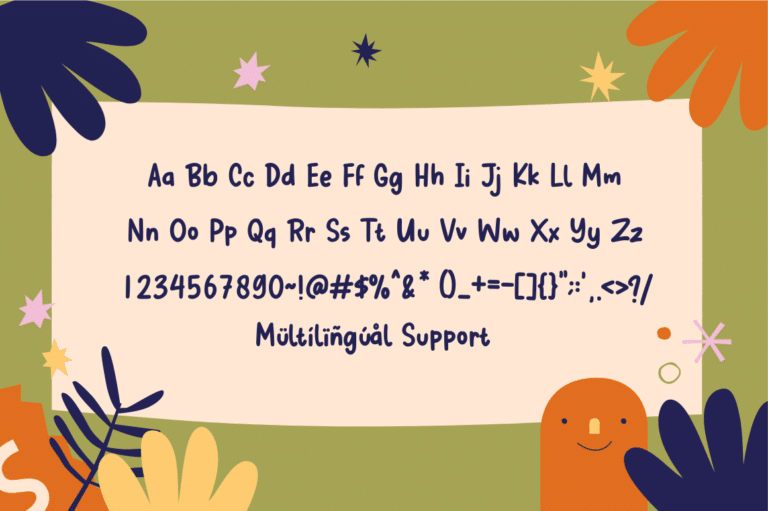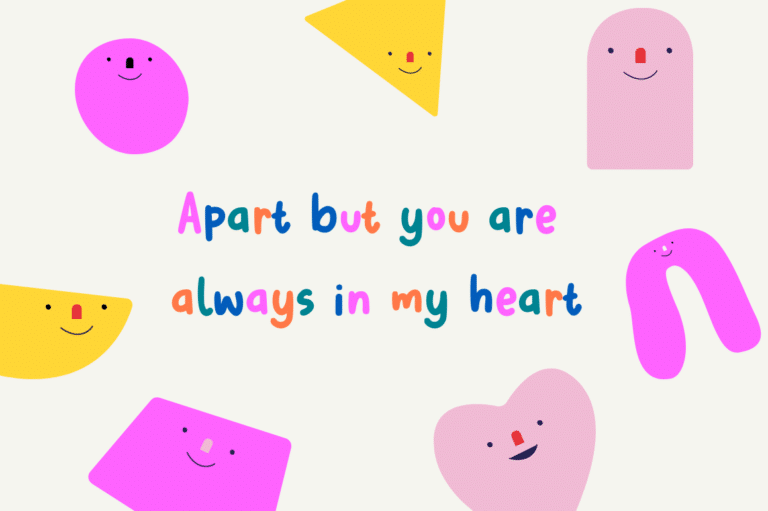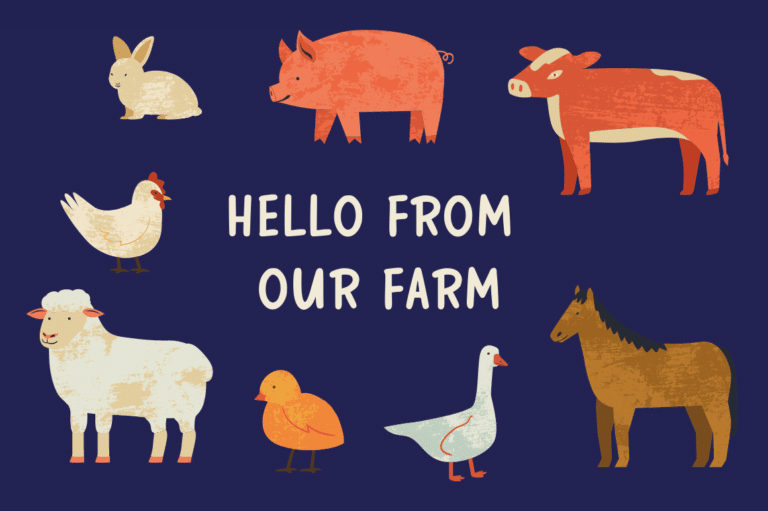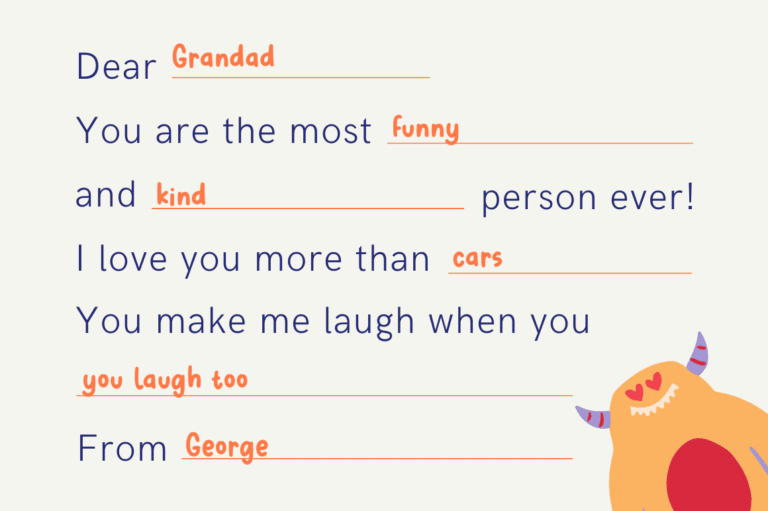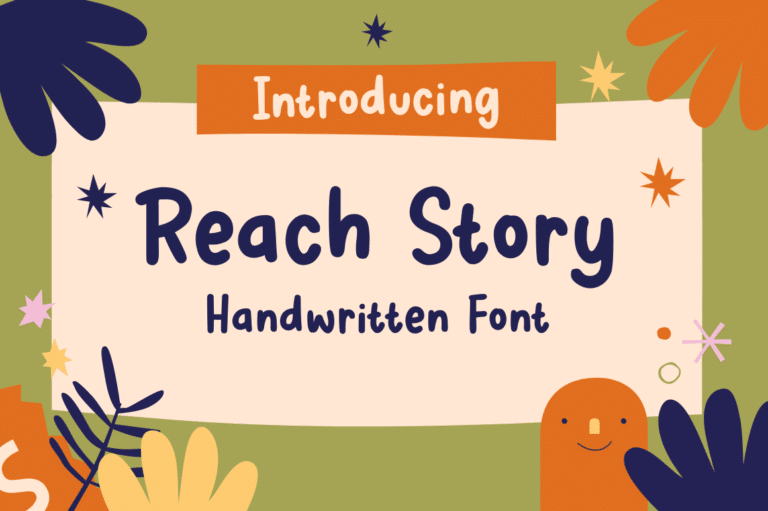
Reach Story Font
Reach Story a bold, monoline handwritten font that brings fun and personality to your designs. With its playful strokes and energetic style, this font is perfect for projects that need a lively and engaging touch, such as posters, social media graphics, or children’s books. Reach Story adds a cheerful and dynamic vibe to your text, ensuring your designs stand out with charm and creativity.